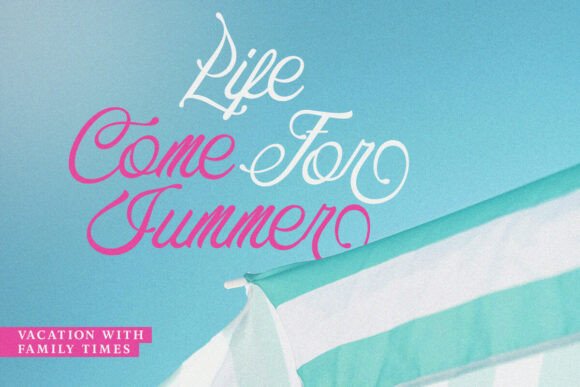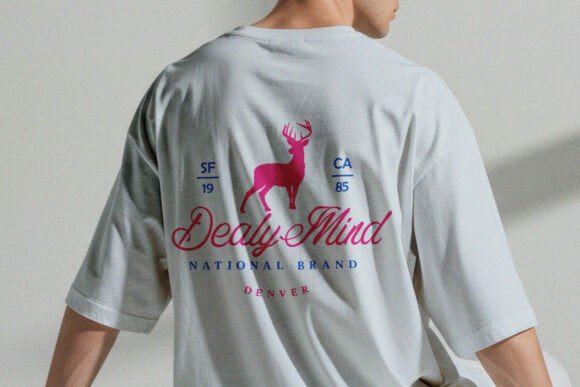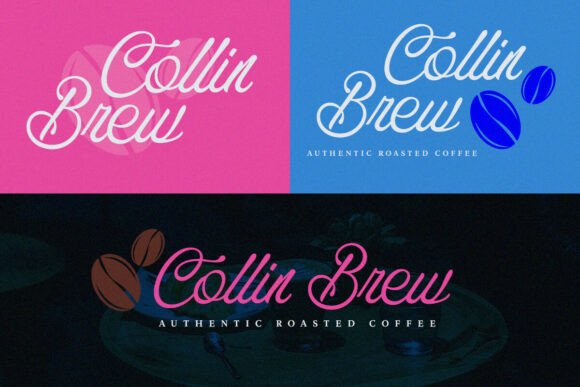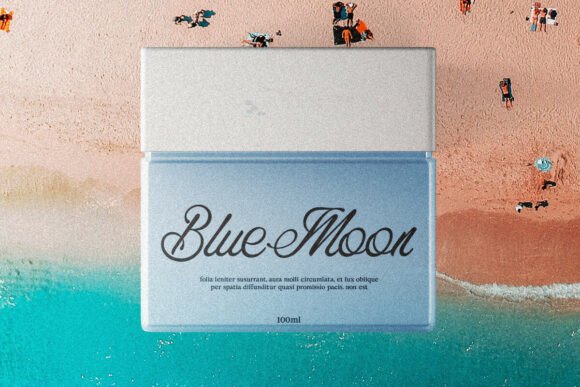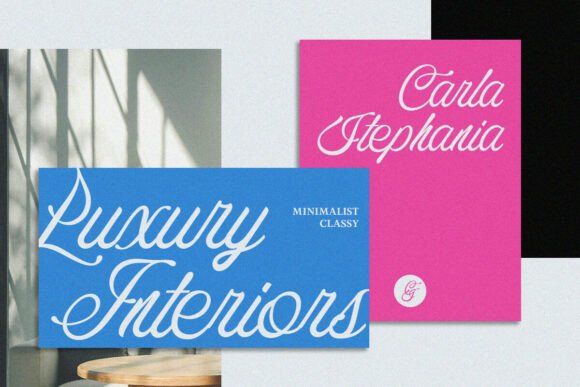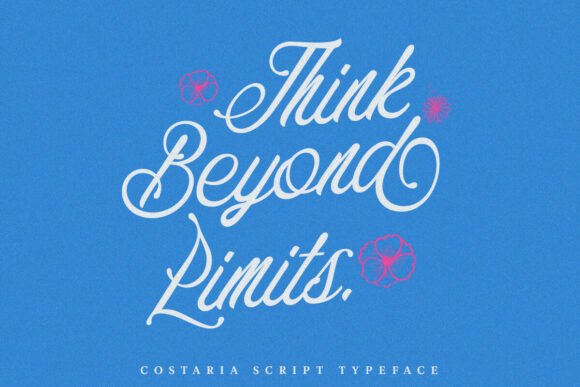
Introducing Costaria Script Font: Elevate Your Designs with Elegance and Sophistication
In the world of typography, few fonts manage to strike a balance between modern elegance and classic charm. Costaria Script Font, designed by Letterfreshstudio Studio, is one such exceptional typeface that embodies sophistication, luxury, and timeless beauty. Whether you’re a designer, craftsperson, or simply someone who appreciates the art of fine typography, Costaria is sure to captivate your senses and elevate your creative projects.
The Artistry of Costaria
Costaria is more than just a font; it’s an artistic expression that exudes refinement and poise. Each letterform has been meticulously crafted with precision and passion, resulting in a fluid and graceful appearance that commands attention. The font’s sophisticated design makes it perfect for a wide range of applications, including branding, packaging, editorials, invitations, and luxury projects.
One of the standout features of Costaria is its ability to convey a sense of luxury and exclusivity. Its elegant strokes and refined lines create a sense of movement and fluidity, making it ideal for designs that require a touch of sophistication. Whether you’re creating a logo, wedding stationery, or an inspirational poster, Costaria adds a level of class and distinction that sets your work apart from the rest.
Design Features and Flexibility
Costaria Script Font boasts a range of design features that make it incredibly versatile and flexible. Its smooth, flowing letterforms can be used in a variety of contexts, from large-scale display headings to smaller body text. The font’s excellent legibility ensures that it remains clear and readable, even at smaller sizes.
One of the key benefits of using Costaria is its ability to complement a wide range of design styles. Whether you’re working on a modern and minimalist project or a more traditional and ornate design, this font adapts seamlessly to suit your creative vision. Its timeless beauty ensures that your designs will remain fresh and relevant for years to come.
Costaria Script Font is an ideal choice for designers and crafters looking to add a touch of sophistication and elegance to their work. Whether you’re creating:
- Logos and branding materials that require a level of luxury and exclusivity
- Wedding stationery and invitations that demand a sense of romance and refinement
- Inspirational posters and artwork that require a touch of artistic flair
- Packaging and product design that needs to stand out on store shelves
Costaria provides the perfect typographic solution. Its flexibility and versatility make it an excellent addition to any designer’s toolkit, allowing you to experiment with different styles and creative directions.
Why Choose Costaria?
So, why choose Costaria Script Font over other typefaces? Here are just a few compelling reasons:
- Sophistication and elegance: Costaria exudes refinement and poise, making it perfect for designs that require a level of luxury and exclusivity.
- Flexibility and versatility: This font can be used in a wide range of contexts, from display headings to body text.
- Timeless beauty: Costaria’s classic charm ensures that your designs will remain fresh and relevant for years to come.
- Excellent legibility: The font’s smooth, flowing letterforms ensure that it remains clear and readable, even at smaller sizes.
By choosing Costaria, you’re investing in a high-quality typeface that will elevate your designs and set you apart from the competition.
| Font Name | Costaria Script Font |
| Author | LetterFreshStudio |
In conclusion, Costaria Script Font is an exceptional typeface that offers a perfect blend of modern elegance and classic charm. Its sophisticated design, flexibility, and versatility make it an ideal choice for designers and crafters looking to add a touch of luxury and refinement to their work. Whether you’re creating branding materials, wedding stationery, or inspirational posters, Costaria is sure to impress. With its timeless beauty and excellent legibility, this font is an excellent addition to any designer’s toolkit.
Discover the artistry and sophistication of Costaria Script Font. Elevate your designs and experience the power of refined typography.